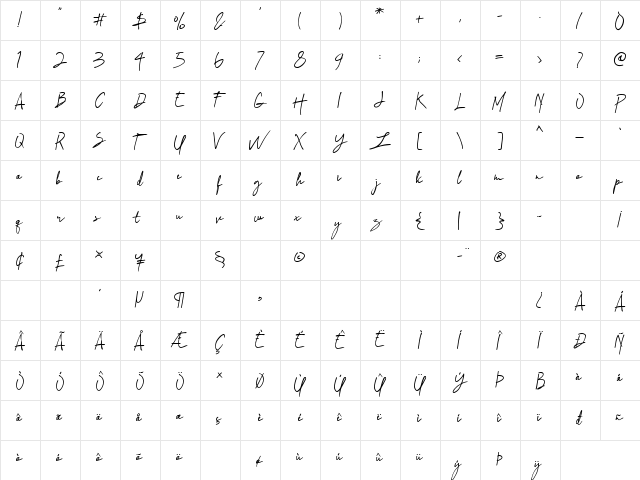
Imaginate Link Regular
| Designer | Muhammad Isa Sulaiman |
Design Context for Imaginate Link Typeface
Imaginate Link is a composed and adaptable typeface that performs quietly and consistently across a wide range of design contexts.